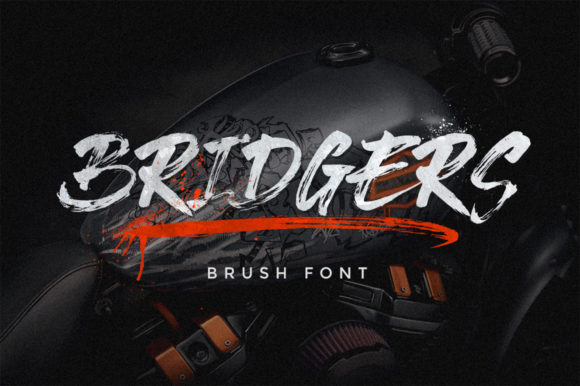
Bridgers Brush Font
Dive into the world of Bridgers Brush Font, a captivating handbrushed script that will ignite your designs with bold energy and a touch of playful charm. This extraordinary font, meticulously crafted by fargunstudio, stands as a testament to the power of handwritten elegance, seamlessly fusing traditional calligraphy with modern aesthetics.
With its distinctive strokes and effortlessly flowing curves, Bridgers Brush Font captures the essence of spontaneous creativity, inviting you to embrace the beauty of imperfections. This font is an ode to the organic charm of handwritten notes, the warmth of personal letters, and the allure of timeless design.
Unleash your imagination and let Bridgers Brush Font lead you on an extraordinary typographic adventure. This versatile font is a chameleon of style, effortlessly adapting to a myriad of design projects. Envision your words dancing across wedding invitations, adding a touch of whimsy to social media posts, or gracing the pages of your latest creative endeavor. The possibilities are endless, bound only by the limits of your imagination.
Step into a realm where creativity flourishes, and let Bridgers Brush Font become your trusted companion. Its bold strokes and playful spirit will captivate your audience, leaving an indelible mark on their hearts and minds. With this font as your ally, you'll unlock a world of design possibilities, transforming ordinary words into extraordinary works of art.